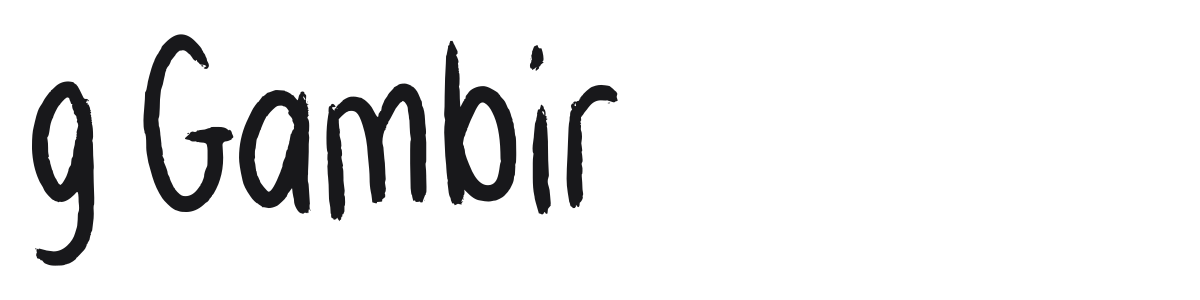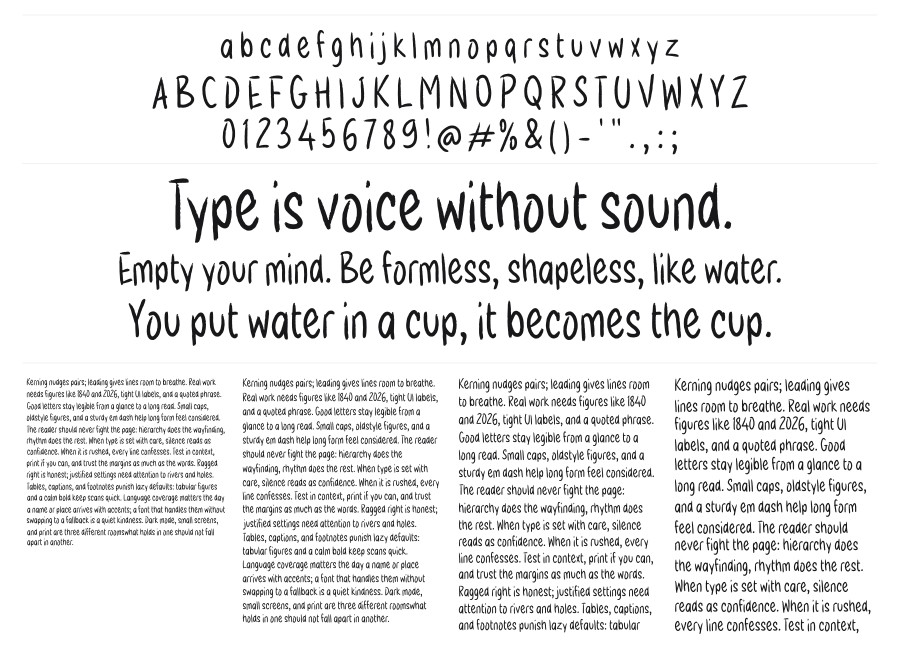
g Gambir
Gambir is a casual brush-painted sans with visible ink texture and gently irregular strokes. The rough bristle edges and relaxed rhythm give it an authentic handmade feel that suits brands leaning into craft or warmth. It reads well at large sizes where the texture has room to breathe.